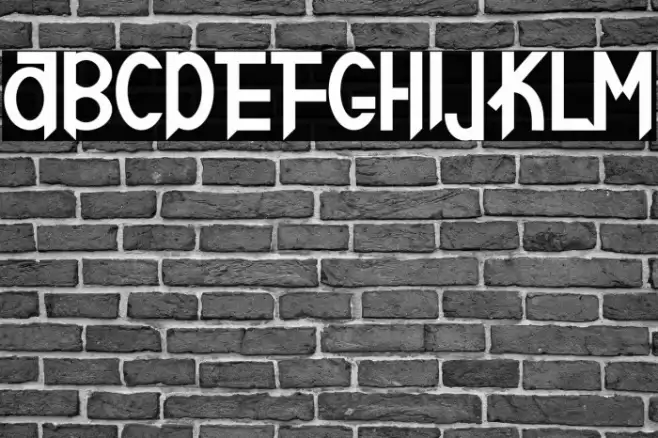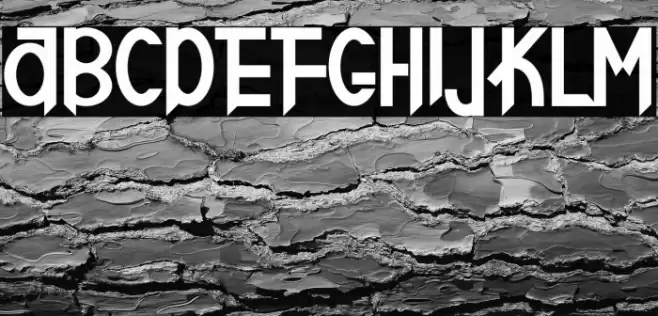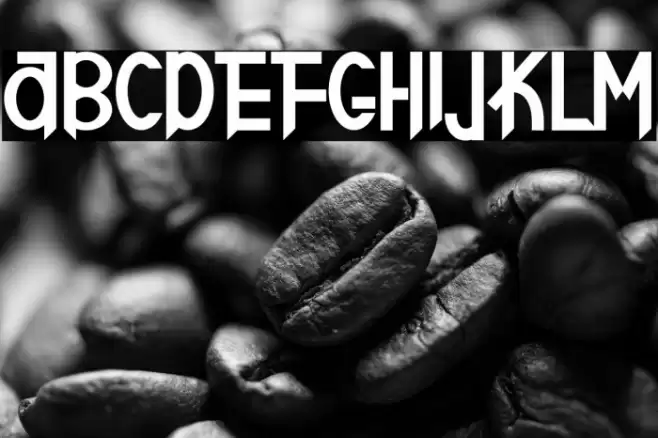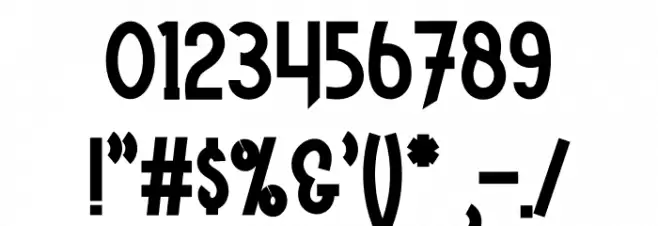
SNOW WOMAN Font
SNOW WOMAN Description
This font features a bold and angular design, characterized by sharp edges and geometric shapes. The uppercase and lowercase letters maintain a consistent style, with a unique cut-out effect that adds a dynamic and modern touch. The numbers and special characters follow the same angular theme, ensuring uniformity across all glyphs. The font's distinct style makes it stand out, suitable for projects that require a strong visual impact.
A bold, angular font with sharp edges and geometric shapes from Uncategorized fonts.
- Proposed Projects: Ideal for posters, logos, branding materials, and headlines that require a modern and striking appearance.